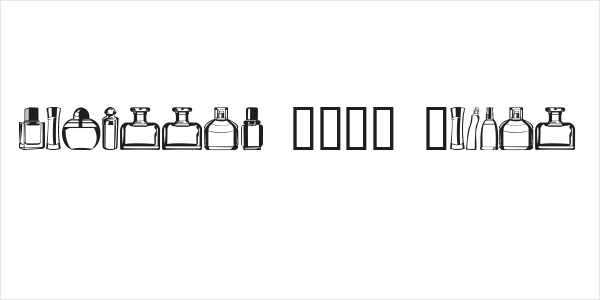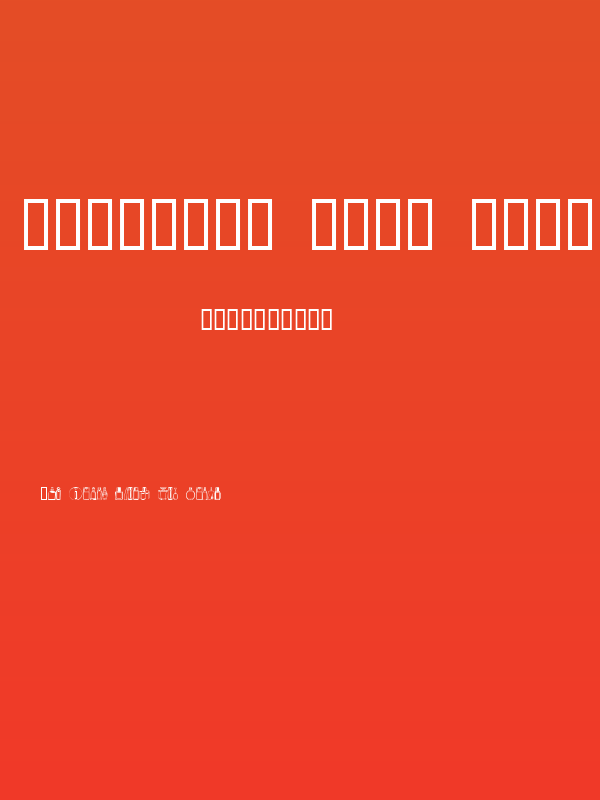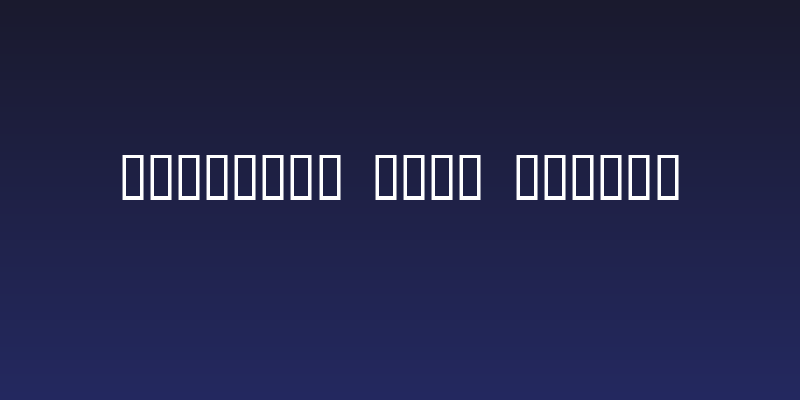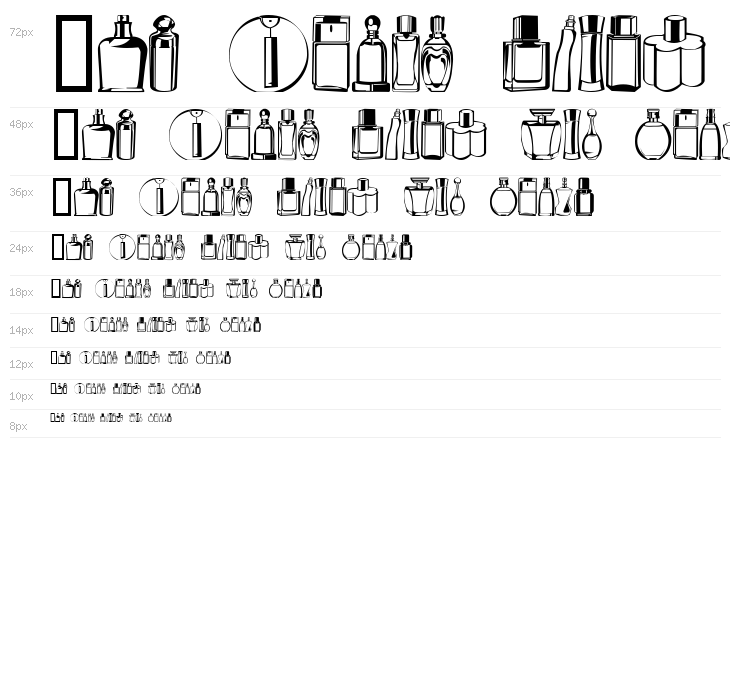
botellas 2004 Normal Font
botellas 2004 Normal Description
A decorative display font featuring detailed illustrations of various perfume bottles as glyphs, each character represented by a unique bottle design with bold outlines and intricate shapes.
| Overall Style | Decorative, Artistic |
| Use Case | Logos, Posters, Packaging, Themed Headlines |
| Proposed Projects | Branding for cosmetics, perfume packaging, beauty industry advertisements, themed event invitations, decorative posters. |